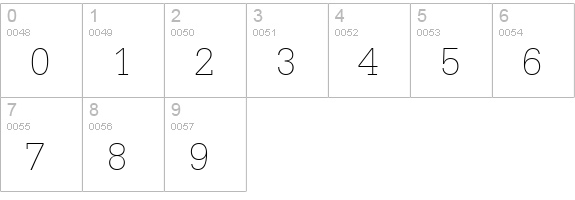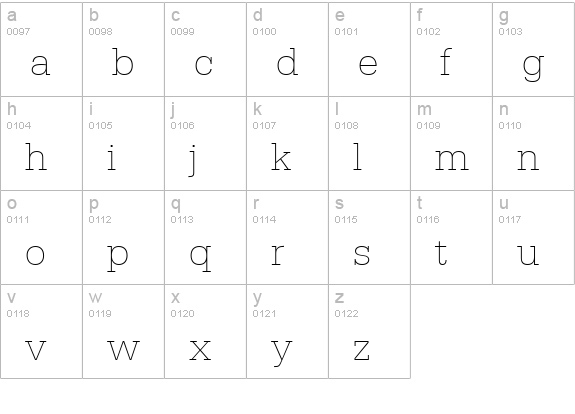
URWEgyptienneTExtLig Font Details
URWEgyptienneTExtLig is a modern and versatile serif font that is perfect for a wide range of design projects. Its clean lines and elegant curves make it easy to read, while its unique ligatures and alternate characters add a touch of personality and style. Whether you're designing a logo, creating a website, or crafting a print advertisement, URWEgyptienneTExtLig will elevate your design to the next level. What sets URWEgyptienneTExtLig apart is that it is not only a high-quality font, but it is also freely available to download. That's right - you can enjoy all the benefits of this exceptional font without having to spend a penny. It's a fantastic opportunity for designers, students, and anyone else looking to add a professional touch to their projects without breaking the bank. To get your hands on URWEgyptienneTExtLig, simply visit FontsMarket.com, where you can easily download and install it on your computer. The process is quick and hassle-free, allowing you to start using the font in no time. Whether you're a beginner or a seasoned designer, URWEgyptienneTExtLig is a must-have font that will enhance your creative endeavors. So why wait? Don't miss out on the chance to elevate your designs with URWEgyptienneTExtLig. Download it for free today at FontsMarket.com and experience the difference it can make in your projects.